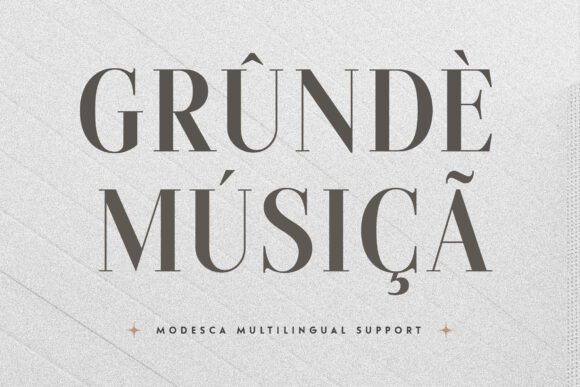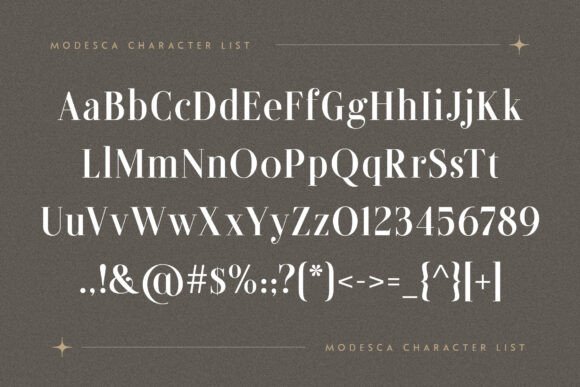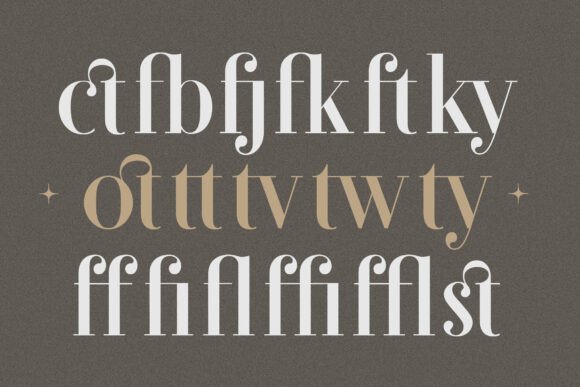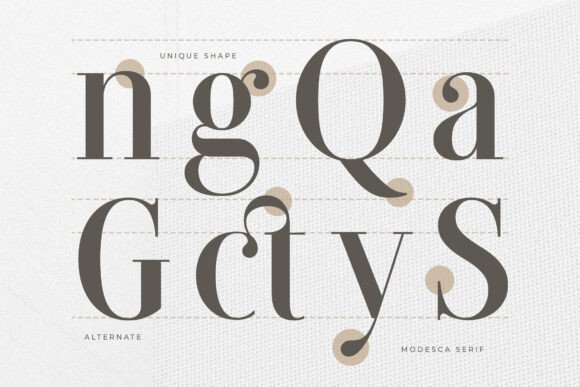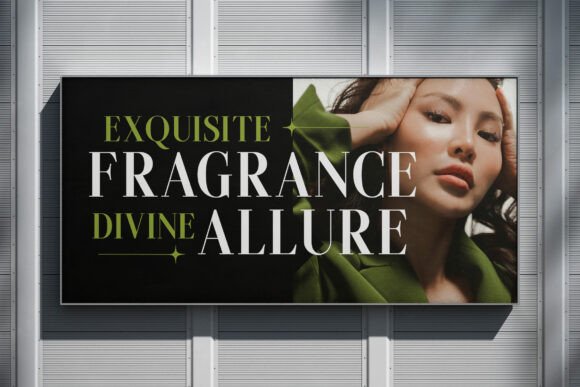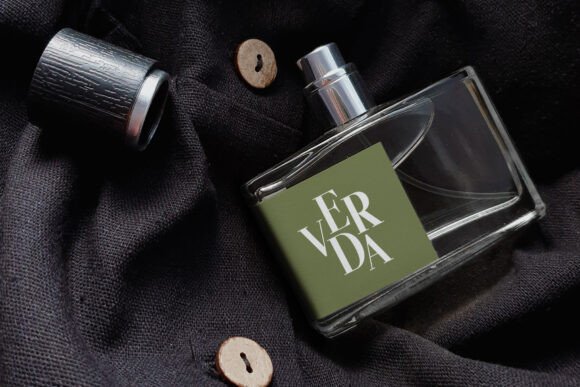
Introduction to Modesca Font
You’re browsing through a design inspiration board, and you stumble upon a beautiful luxury branding project. The elegant typography, the refined colors, and the sophisticated layout all come together to create an unforgettable visual experience. But have you ever wondered what makes a font truly stand out in such projects? The answer lies in the subtle details that elevate a design from good to exceptional, and that’s where Modesca Font comes in.
As a designer, you’re always on the lookout for that perfect design resource to give your creative project an edge. Modesca Font is more than just a luxury serif font – it’s a game-changer for designers who want to add a touch of sophistication to their work. With its sleek lines and timeless elegance, Modesca Font is the perfect choice for high-end projects that require a level of sophistication and refinement.
Whether you’re working on a luxury branding project, designing high-quality packaging, or creating chic social media graphics, Modesca Font is the perfect tool to help you achieve your design goals. With its complete set of uppercase and lowercase letters, punctuation, numerals, and elegant ligatures, Modesca Font is a valuable asset for any designer looking to elevate their work to the next level.
Key Features of Modesca Font
- Unique, stylish design suitable for modern and artistic applications
- Perfect for designers and artists looking for a distinctive design element
- Includes a comprehensive character set for versatility and readability
Honest Review: Modesca Font
As a designer, I’m always on the lookout for high-quality fonts to elevate my creative projects. Recently, I stumbled upon the Modesca Font, which I’ll be sharing my honest review of.
Firstly, I was impressed by the sleek and modern design of the Modesca Font. ✨ The clean lines and elegant feel make it perfect for a variety of design applications, from branding to editorial content.
One of the standout features of the Modesca Font is its versatility. It comes with a transparent background, making it easy to use on any background without worrying about a distracting fill color.
Here are some of the key features that I liked about the Modesca Font:
- Transparent background for easy use on any background
However, I did encounter some limitations with the Modesca Font. ⚠️ The font is not as comprehensive as some other options on the market, with a limited character set and no italic or bold variations.
Overall, the Modesca Font is a great addition to any designer’s toolkit, offering a high-quality design that’s perfect for a variety of creative projects. While it may not be the most comprehensive font option, its free download and transparent background make it an excellent design resource to have on hand.
For the best results, use the Modesca Font in bold or italic styles to add emphasis to your text. This font is ideal for use in logos, headings, and titles. You can also use it to create a consistent design style throughout your project.